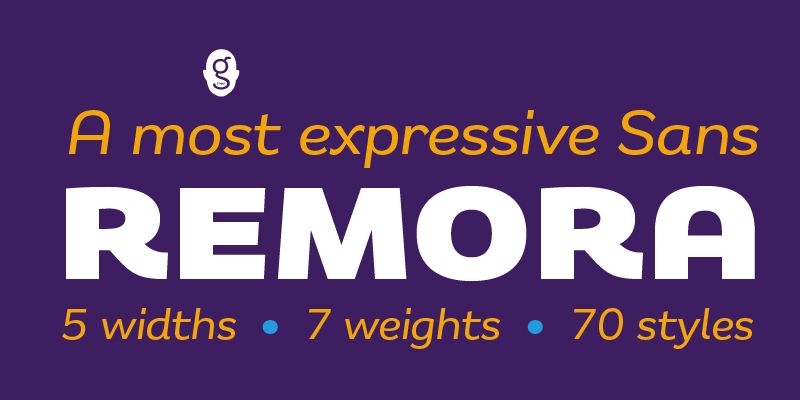
Remora Sans specimen
Remora Sans
The exuberant Remora Sans is a must-have humanist typeface comprising 70 fonts across 5 width sets ranging from W1 condensed to the extra-wide W5. Characterful fonts packed with personality.